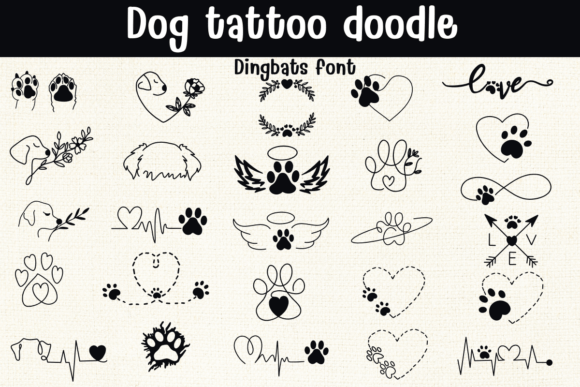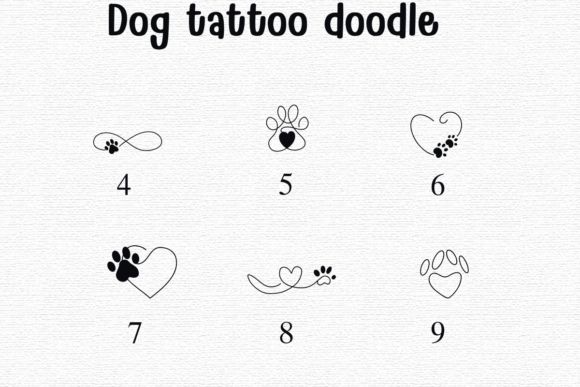
Dog Tattoo Doodle Font
Dog Tattoo Doodle is a charming dingbat font packed with designs inspired by dogs, paw prints, hearts, and love symbols. Perfect for creating tattoos, pet-themed crafts, greeting cards, logos, and DIY projects, this set brings a personal and playful touch to any design. With its simple yet expressive doodle style, it’s a must-have for pet lovers and creatives alike.